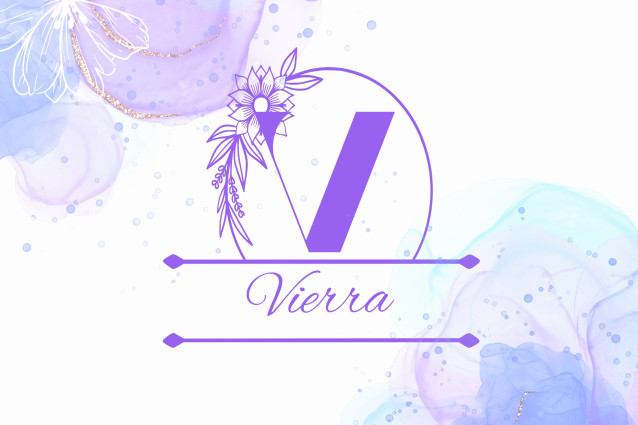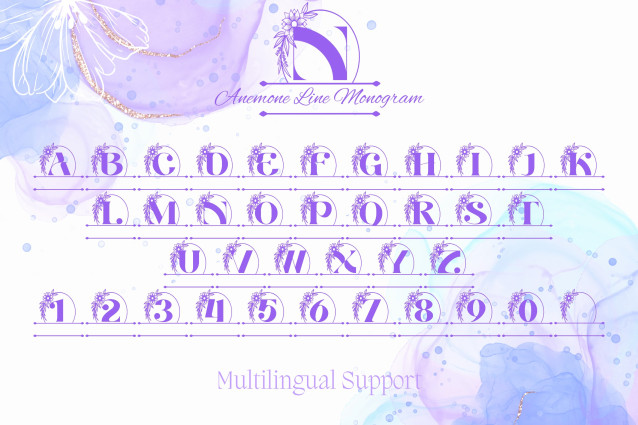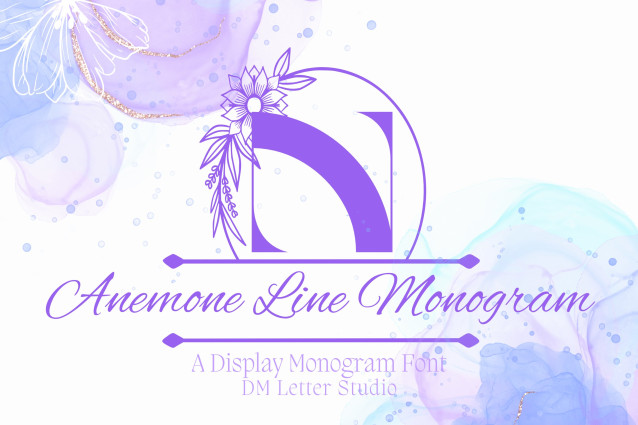
Anemone Line Monogram Font
Anemone Line Monogram is a refined monogram font featuring delicately drawn floral accents inspired by the graceful anemone flower. With its clean lines and elegant curves, this monogram font adds a sophisticated botanical flair to branding projects, wedding invitations, feminine logos, stationery, and personalized gifts.